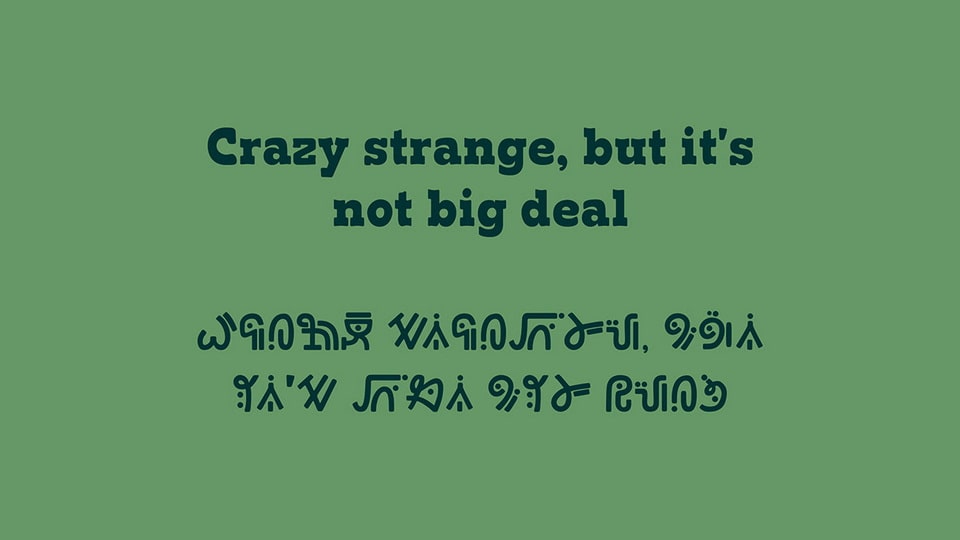
Amphibia is a lovingly crafted font that pays homage to Matt Braly’s Amphibia series, a show that holds a special place in the heart of its designer. Each letter has been meticulously designed to be both legible and cohesive, while capturing the adventurous, whimsical spirit of the series. The playful curves, inspired by the vibrant world of Amphibia, reflect the magical and diverse creatures and landscapes seen throughout the show, making the font feel like a seamless part of its universe.
This font is ideal for fans of Amphibia and projects that want to convey both a sense of wonder and heartfelt tribute, offering a design that is both accessible and deeply connected to the heart of the series.